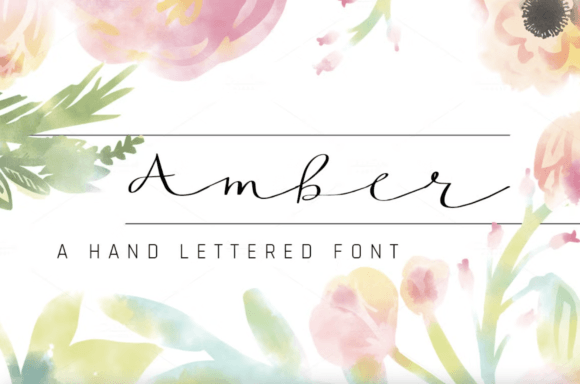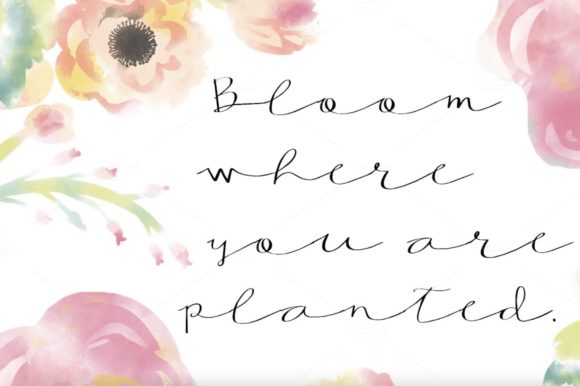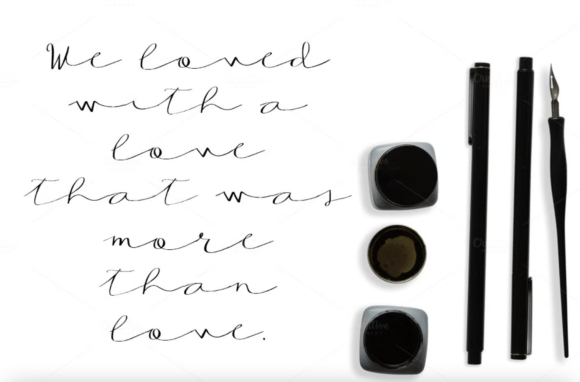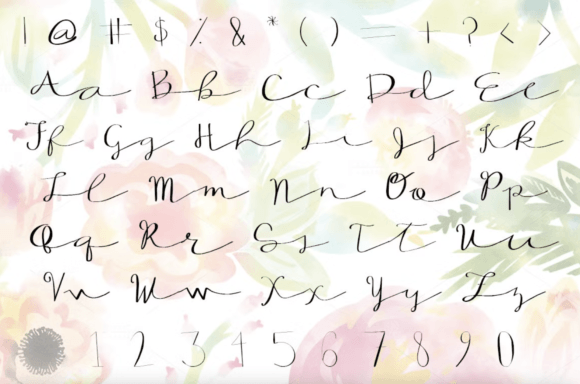
Amber Font: Elegant Handwritten Script for Wedding & Branding Design
About the Amber Font
Presenting Amber Font, a unique and stylish typeface that will make your work stand out. Crafted with meticulous attention to detail, Amber is a stunning handwritten font that exudes sophistication and creativity. Characterized by elongated, slender lines, Amber boasts a balanced fusion of elegant kinks and playful curves, adding an unmistakable uniqueness to any design project.
Amber’s elegant yet playful nature makes it ideal for headlines, short text blocks on invitations or packaging, and branding elements where a touch of sophistication is desired. It works exceptionally well for logos, short quotes, and social media graphics. However, its delicate strokes are not suited for body text or long paragraphs, and its handwritten style might be too informal for UI applications.
For optimal visual balance, pair Amber with a clean sans-serif like Lato or Open Sans for a modern feel, or a classic serif such as Garamond or Playfair Display for a more traditional aesthetic. A geometric sans-serif like Montserrat could also provide a striking contrast, highlighting Amber’s organic forms.
Amber’s overall personality is sophisticated yet approachable; it conveys a sense of refined playfulness, making it suitable for brands focused on creativity, artistry, or luxury goods with a youthful spirit.
Amber Font Usage Examples
Amber Font Example